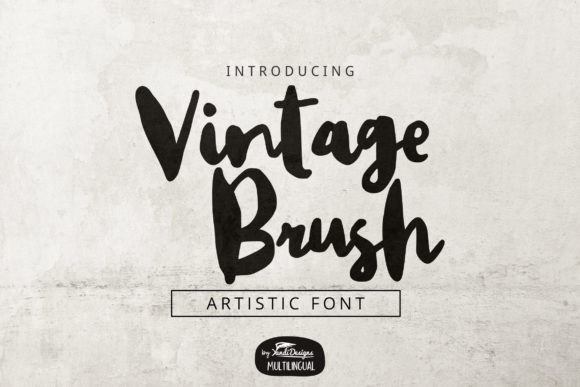
Get ready to embrace the beauty of nostalgia with Vintage Brush Font, an enchanting display font meticulously crafted by the design maestros at YandiDesigns. Unleash your creativity with this font family, a perfect match for those seeking captivating fonts to add a touch of vintage charm to their projects.
Imagine the allure of handwritten letters, the warmth of aged parchment, and the timeless elegance of classic brushstrokes – Vintage Brush Font captures the essence of all these elements, inviting you to weave tales of bygone eras and evoke emotions that transcend time.
Picture yourself designing wedding invitations imbued with an air of romantic nostalgia, or crafting posters that whisper of forgotten adventures. With Vintage Brush Font, you'll effortlessly create logos that exude a sense of heritage, perfect for businesses longing to evoke a connection with their roots. The possibilities are as limitless as your imagination.
Indulge in the versatility of Vintage Brush Font, a font family that seamlessly adapts to a myriad of design endeavors. Its whimsical nature lends itself perfectly to branding, packaging, and social media designs, adding a touch of whimsy and nostalgia to your creations. Unleash your inner artist and explore the boundless potential of this enchanting font.
Step into a realm of boundless creativity with Vintage Brush Font, where your designs will bloom with the allure of yesteryears. Let your imagination soar and embark on a journey through time, where the nostalgic charm of vintage lettering intertwines with the vibrancy of modern design. Embrace the timeless beauty of Vintage Brush Font today!